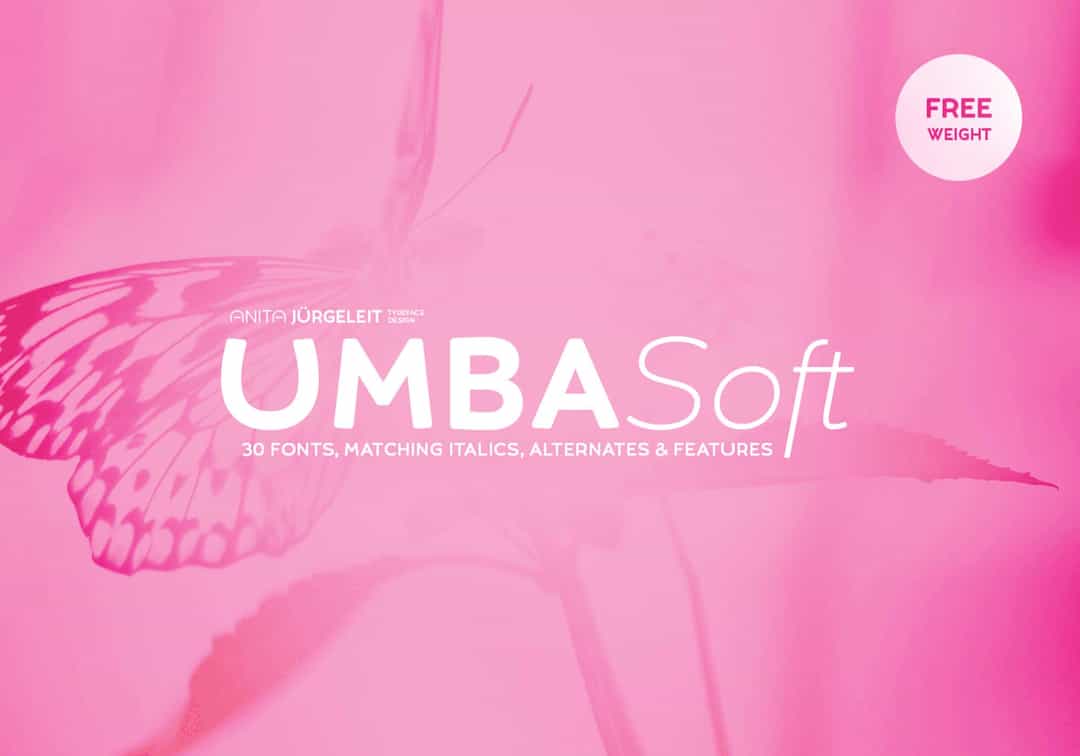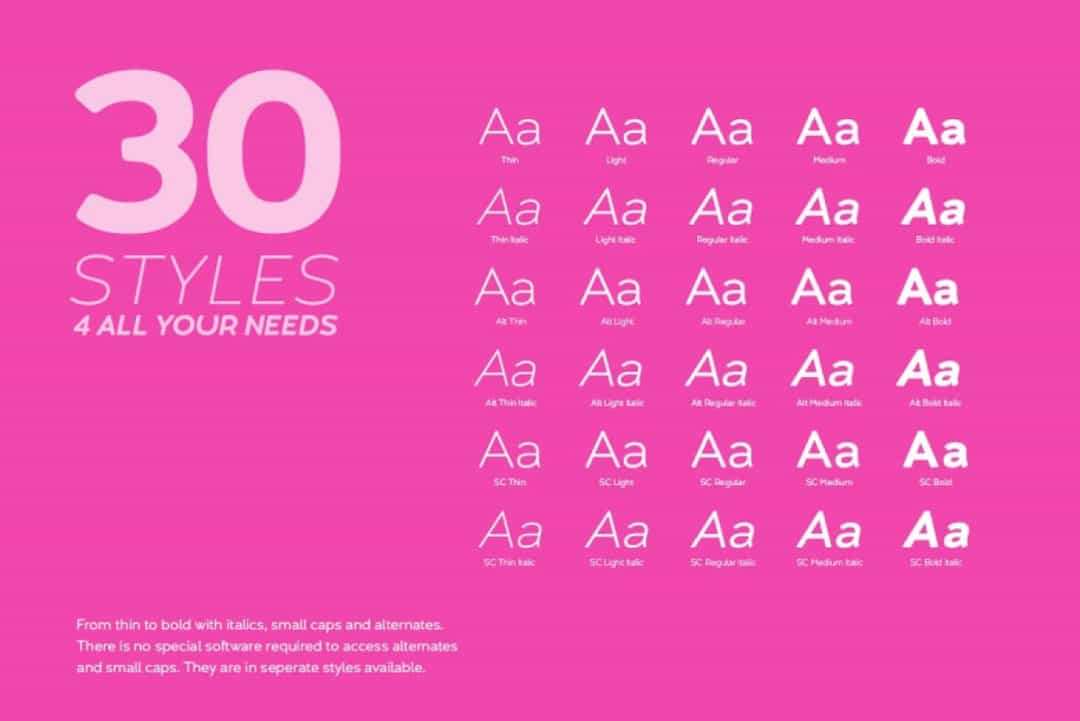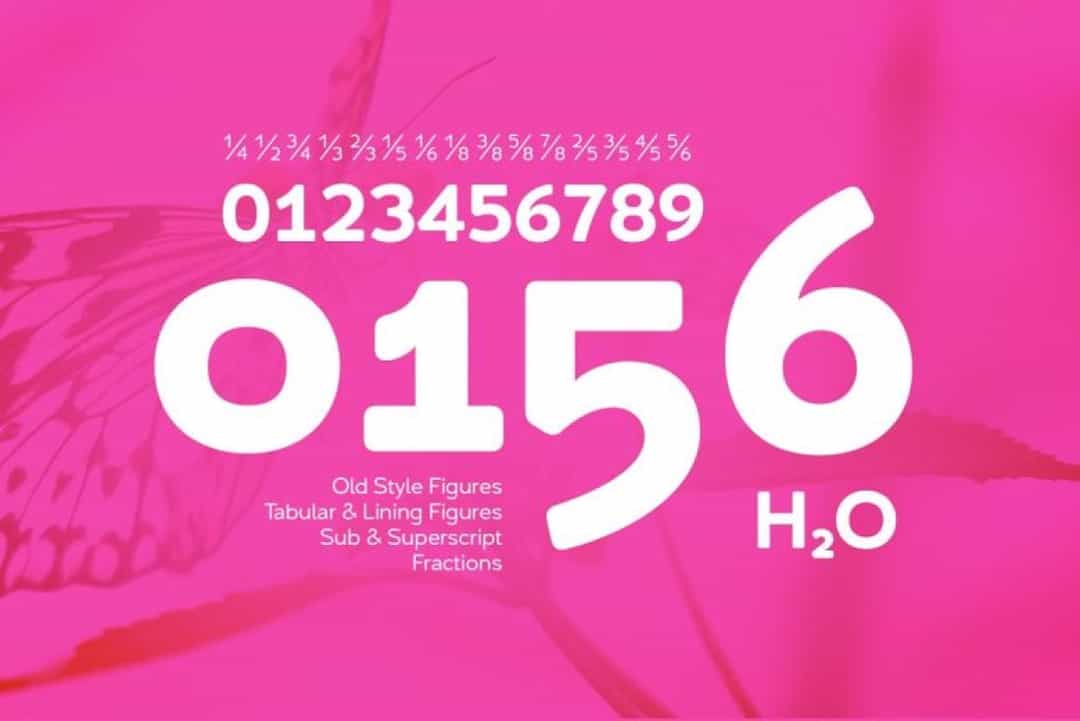
Introducing Umba Soft. UMBA Soft is a serene sans serif typeface created by Anita Jürgeleit. It relaxes your design and helps to make the balance of visualization. Do you need a type for the cosmetics of young people or other youth-related products?Umba Sans is an example of a good typeface.